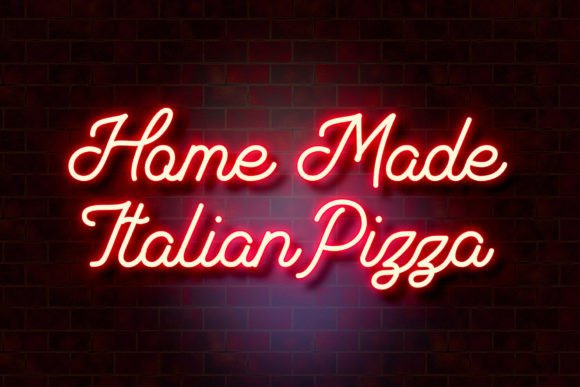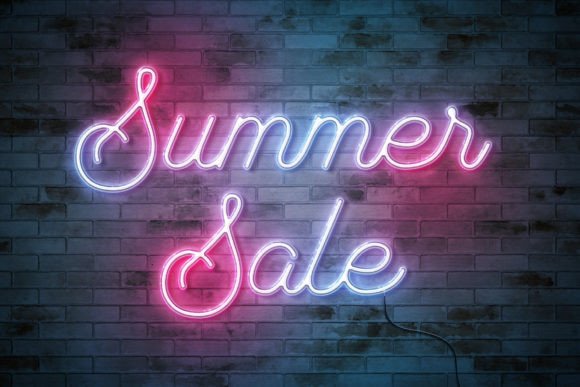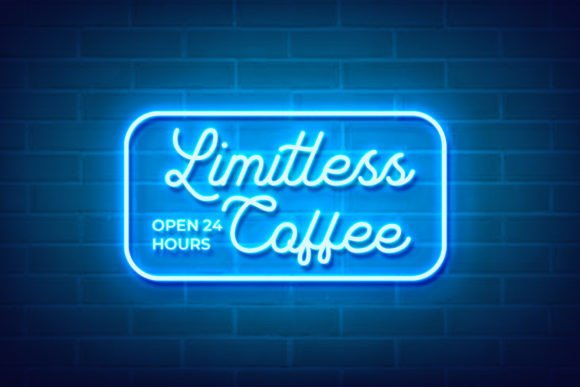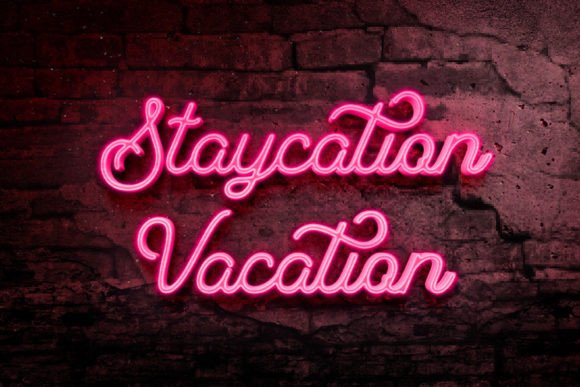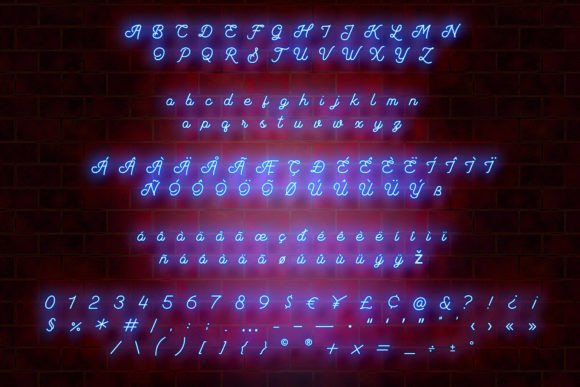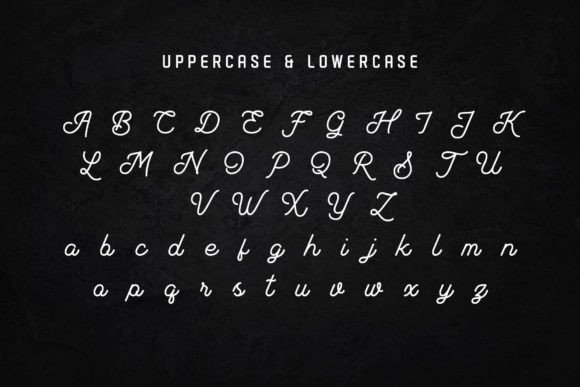
Introduction to Midnight Runners Font
Midnight Runners is a monoline neon script that is very suitable and recommended for your design project or branding using a neon text effect, it’s cool and awesome.
This font is PUA encoded which means you can access all of the amazing glyphs and ligatures with ease .
Key Features of Midnight Runners Font